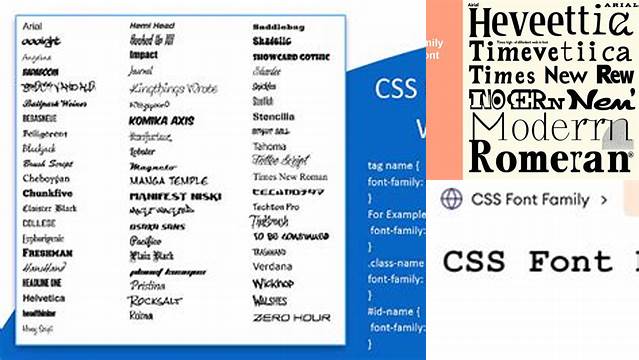
Free Font Family CSS: Guide & Examples
Choosing the right fonts for your website or project can be a game-changer, guys. Typography plays a huge role in readability, user experience, and overall design aesthetics. Using CSS to manage your font families gives you amazing control and flexibility. Let's dive deep into the world of free font family CSS and explore how you can make your text look absolutely stunning!
1. Understanding Font Family CSS
Okay, so what exactly is font family CSS? Simply put, it's the CSS property that allows you to specify a list of fonts for an element. The browser will try to use the first font in the list. If that font isn't available, it moves on to the next, and so on. This is super important for ensuring your text displays correctly, even if a user doesn't have your preferred font installed. When we talk about free font family CSS, we're discussing how to implement this property using freely available fonts. You've got system fonts, web fonts from services like Google Fonts, and even self-hosted options. Knowing how to leverage these can make a massive difference in your design workflow and the final look of your project. Think of it as building a fallback strategy for your text – the more options you provide, the better the chance that your content will look exactly how you envisioned it, no matter who's viewing it. So, let's get into the nitty-gritty and explore the amazing possibilities with free font family CSS! We'll cover everything from basic syntax to advanced techniques, ensuring you're well-equipped to handle any typography challenge. Remember, a well-chosen font can make your content not just readable, but engaging and memorable. And the best part? You don't have to break the bank to achieve this!
2. Basic CSS Font Family Syntax
Alright, let's break down the basic syntax for using the font-family property in CSS. It's pretty straightforward, but understanding it is crucial for getting your typography spot-on. The font-family property accepts a list of font names, separated by commas. The browser will go through this list from left to right, trying each font until it finds one that's available. This is where the idea of free font family CSS really shines because you can specify a combination of web fonts and system fonts to ensure your text always looks great. The general syntax looks like this:
Here's the deal: "Font Name 1" is your preferred font, like a web font you've linked from Google Fonts. "Font Name 2" is a fallback font, maybe a system font that's likely to be available on most devices. And generic-family is a generic font family like serif, sans-serif, monospace, cursive, or fantasy. These generic families are super important because they ensure that even if none of your specified fonts are available, the browser will still apply a font that roughly matches the style you're going for. When you're working with free font family CSS, you'll often use this syntax to combine a beautiful web font with a reliable system font fallback. For example, you might use Open Sans (a free web font) as your primary font and sans-serif as your fallback. This way, if Open Sans isn't loaded for some reason, the browser will default to a standard sans-serif font, which still keeps your text looking clean and readable. So, mastering this syntax is your first step in creating awesome typography with free font family CSS. It's all about providing options and ensuring your text always looks its best!
3. Using System Fonts in CSS
System fonts are those fonts that are pre-installed on a user's operating system. Using them in your CSS can be a smart move, especially when you're aiming for speed and reliability. Since these fonts are already on the user's machine, they don't need to be downloaded, which can lead to faster page load times. This is a big win for user experience! Plus, system fonts are generally very readable and well-designed, making them a solid choice for body text and other essential content. When we talk about free font family CSS, system fonts are a key component. They act as excellent fallbacks for your web fonts, ensuring that your text always has a default style to fall back on. Now, how do you actually use system fonts in CSS? It's as simple as specifying their names in your font-family property. Here are a few common system fonts you might want to consider:
Arial: A classic sans-serif font that's widely available on Windows and macOS.Helvetica: Another popular sans-serif font, often used on macOS.Times New Roman: A traditional serif font, common on Windows.Courier New: A monospace font, often used for code snippets.Georgia: A readable serif font, great for body text.Verdana: A sans-serif font designed for screen readability.
When using system fonts, it's a good idea to create a font stack that includes several options. This way, if one font isn't available on a user's system, the browser can move on to the next one. For example, you might use a stack like this:
In this example, the browser will first try to use Arial. If that's not available, it will try Helvetica. And if neither of those are available, it will fall back to a generic sans-serif font. This ensures that your text will always have a readable style, no matter what. So, system fonts are your reliable buddies in the world of free font family CSS. They're fast, reliable, and can help you create a great reading experience for your users.
4. Exploring Google Fonts for Free
Google Fonts is a treasure trove for designers and developers looking for free font family CSS options. It's a massive library of open-source fonts that you can use in your projects without any licensing fees. Seriously, it's like a candy store for typography lovers! The best part? Integrating Google Fonts into your website is super easy. Google Fonts offers a wide variety of font styles, from elegant serifs to modern sans-serifs, and even quirky display fonts. You can find fonts that are perfect for headlines, body text, and everything in between. When you're working on a project, selecting the right fonts can make a huge difference in the overall look and feel. And with free font family CSS from Google Fonts, you've got a massive toolkit at your fingertips. To use Google Fonts, you first need to head over to the Google Fonts website. There, you can browse the library, filter by categories, and even preview how different fonts look with your own text. Once you've found a font you like, you can click on it to see the available styles (like regular, bold, italic) and then select the styles you want to use. Google Fonts will then generate a snippet of code that you can add to your website. This code usually comes in two forms: a <link> tag that you add to the <head> of your HTML document, and a CSS rule that you use to apply the font to your elements. The <link> tag tells the browser to download the font files from Google's servers, and the CSS rule tells the browser which font to use for which elements. For example, if you choose the font "Open Sans," Google Fonts might give you code like this:
In this example, the <link> tag fetches the Open Sans font in regular and bold weights, and the CSS rule applies it to the entire body of your page. The sans-serif part is the fallback, ensuring that if Open Sans isn't available for some reason, the browser will use a generic sans-serif font instead. Google Fonts really simplifies the process of using free font family CSS in your projects. It's a fantastic resource for finding high-quality fonts that can make your website look amazing.